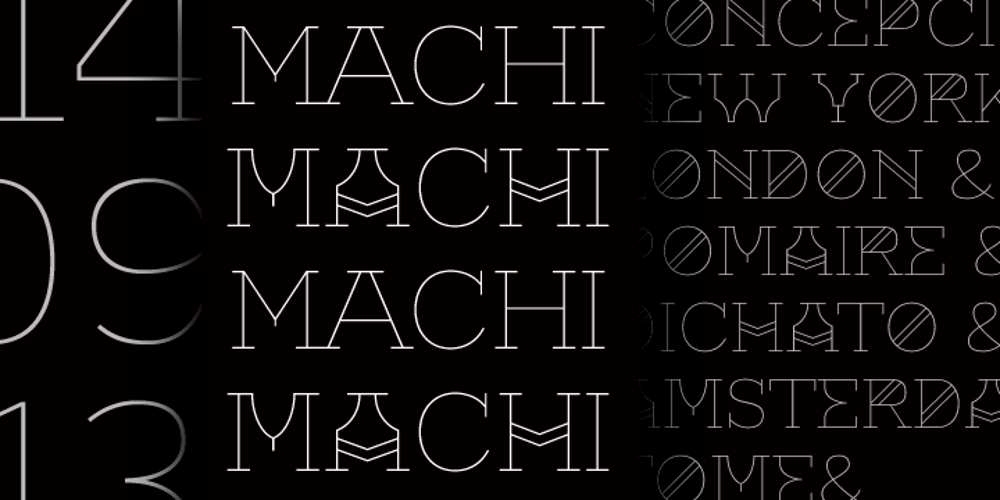
Machi Font Family was designed by Luciano Vergara and published by MendozaVergara. Machi contains 1 styles and family package options. Machi is a font, clean, mystic and contemporary geometric sans for titling. The uppercase is simple and clean, but in the lowercase have ornamental characters. It is perfect for headlines, apparel, fashion, album artwork, posters and logos. Photos by Claudio Sepulveda.